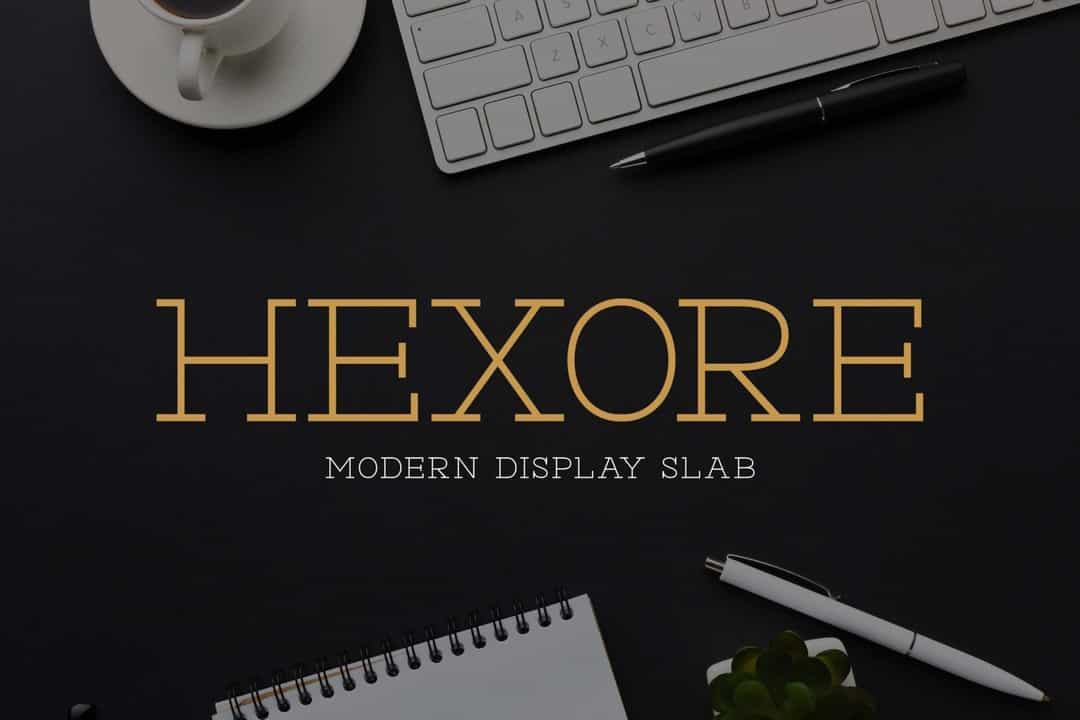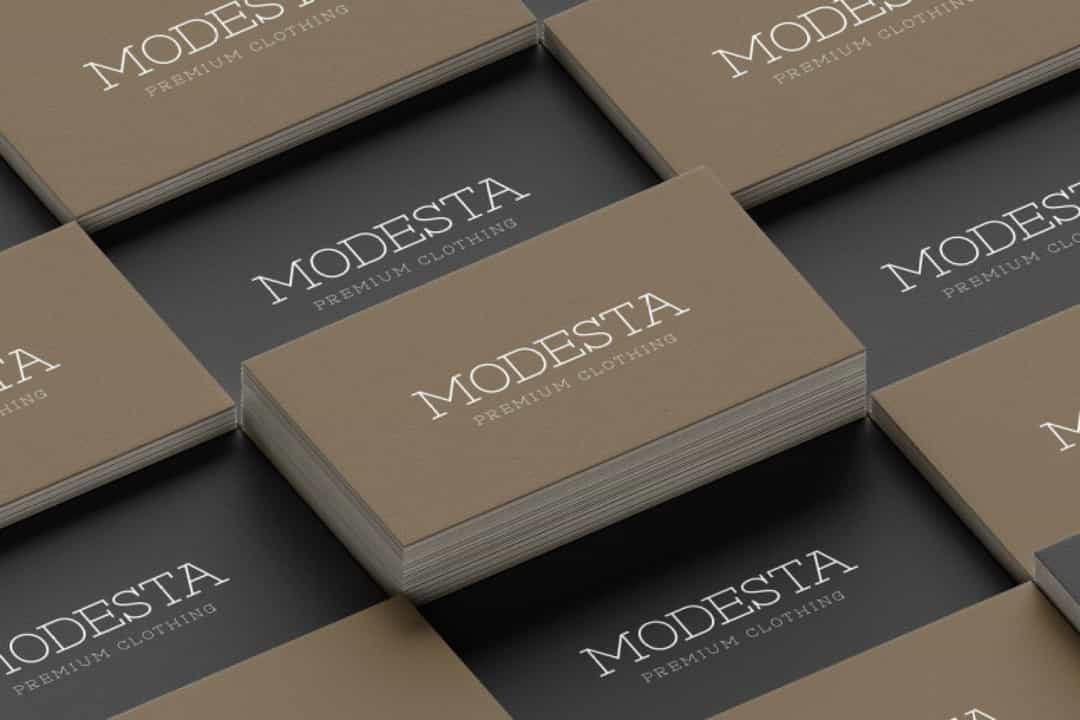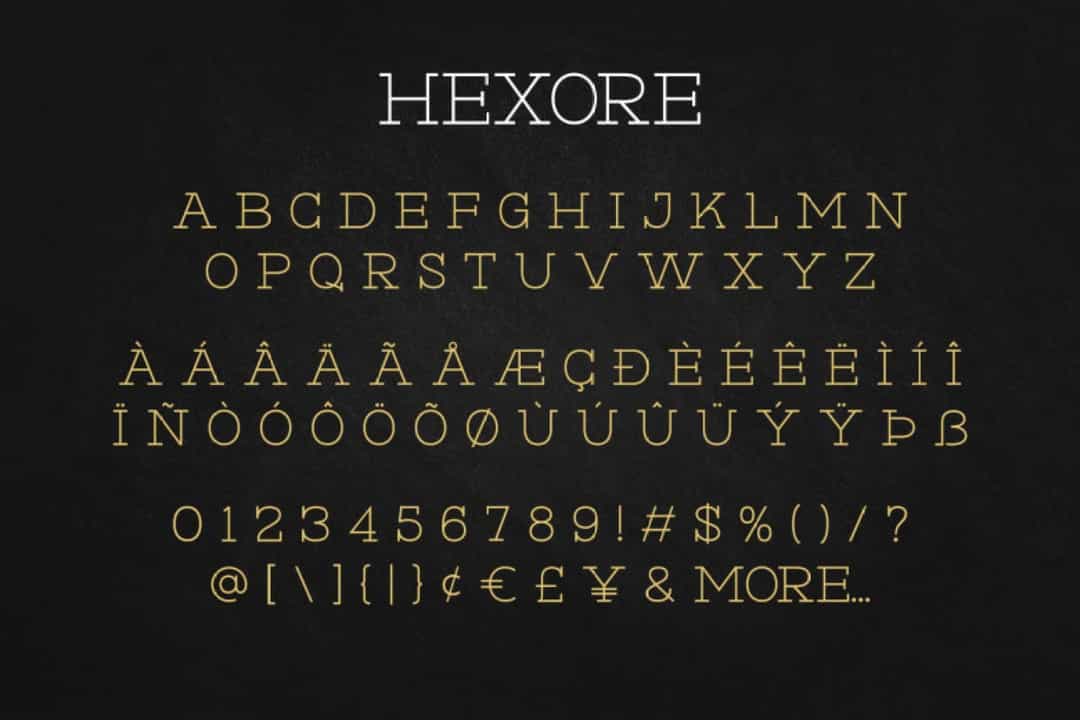
Hexoreis is an eye-catching modern screen slab serif typeface inspired by iconic minimalist logo. Perfect for use in brochures, templates videos advertisements branding logos and much more, Hexore is suitable for creating brochures, templates videos advertisements branding logos as well as much more!